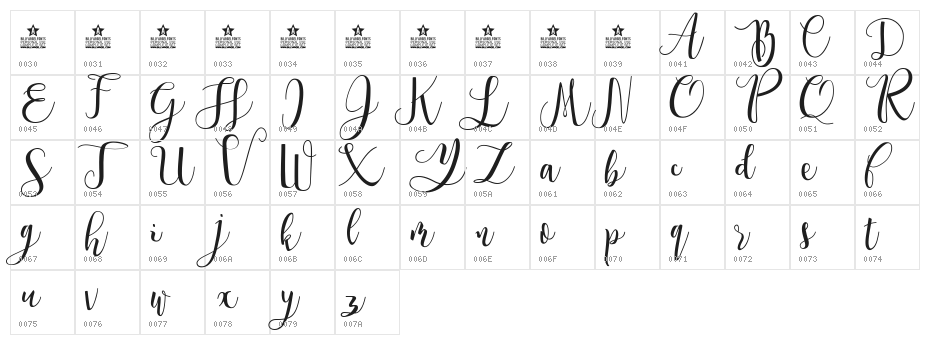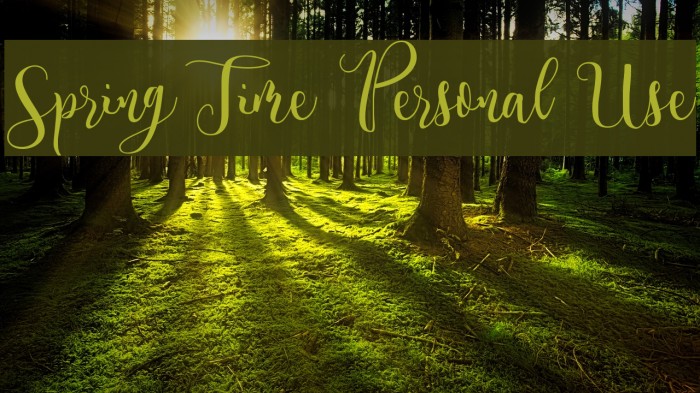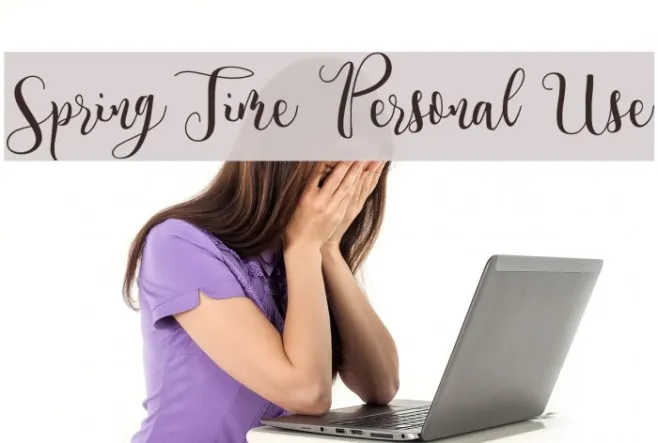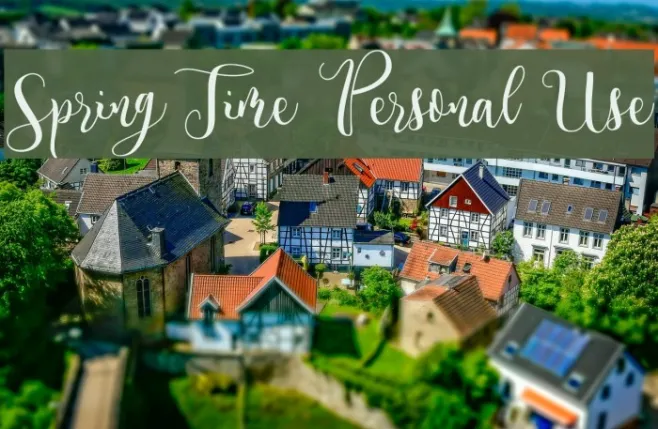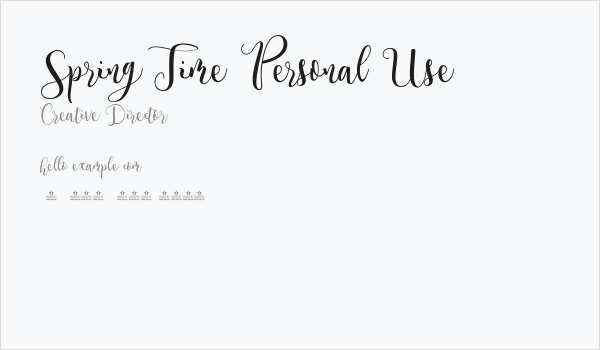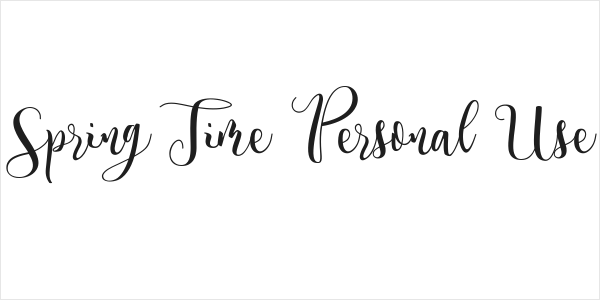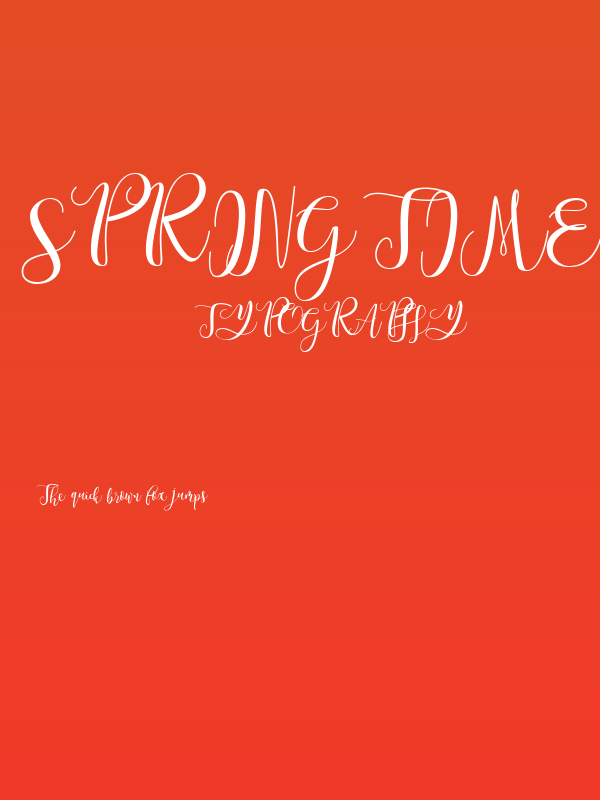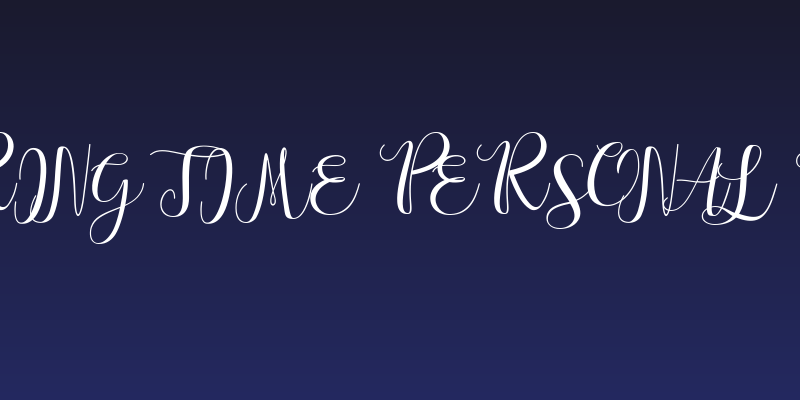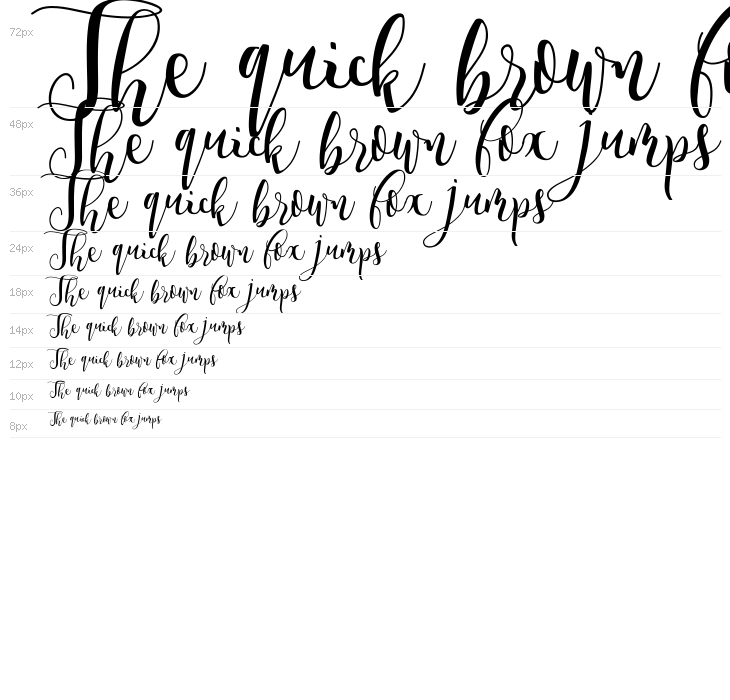
Spring Time Personal Use Font
Spring Time Personal Use Description
This font features an elegant and flowing script style with a handwritten appearance. The uppercase letters are characterized by their intricate loops and swirls, giving them a sophisticated and ornate look. The lowercase letters maintain a consistent flow, with some characters extending below the baseline, adding to the font's dynamic nature. The overall design is both artistic and legible, making it suitable for decorative purposes. The font's unique style is enhanced by its varying stroke widths, which provide a sense of movement and grace.